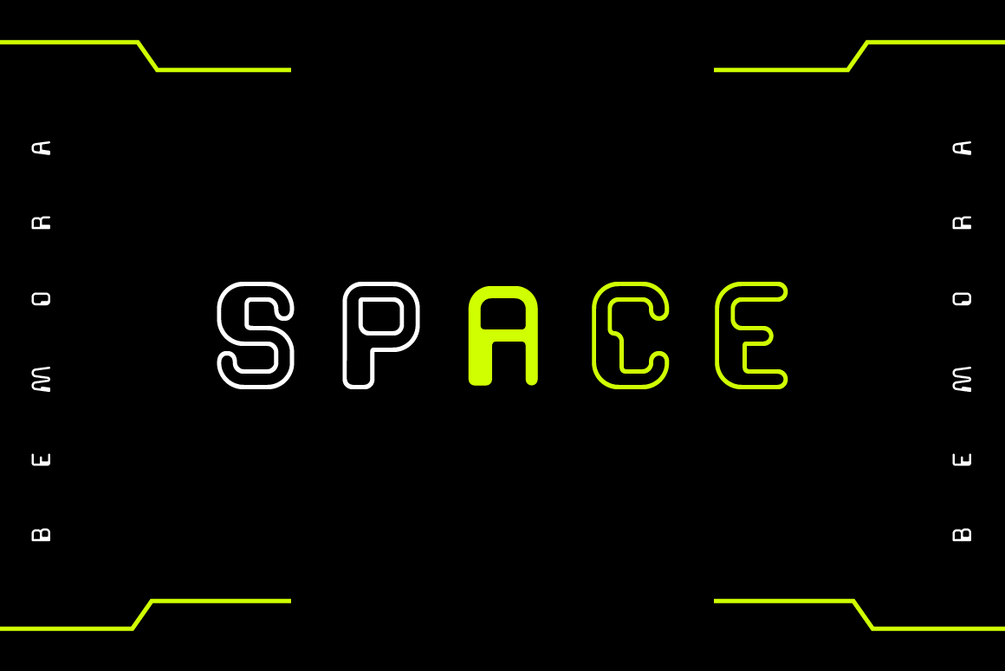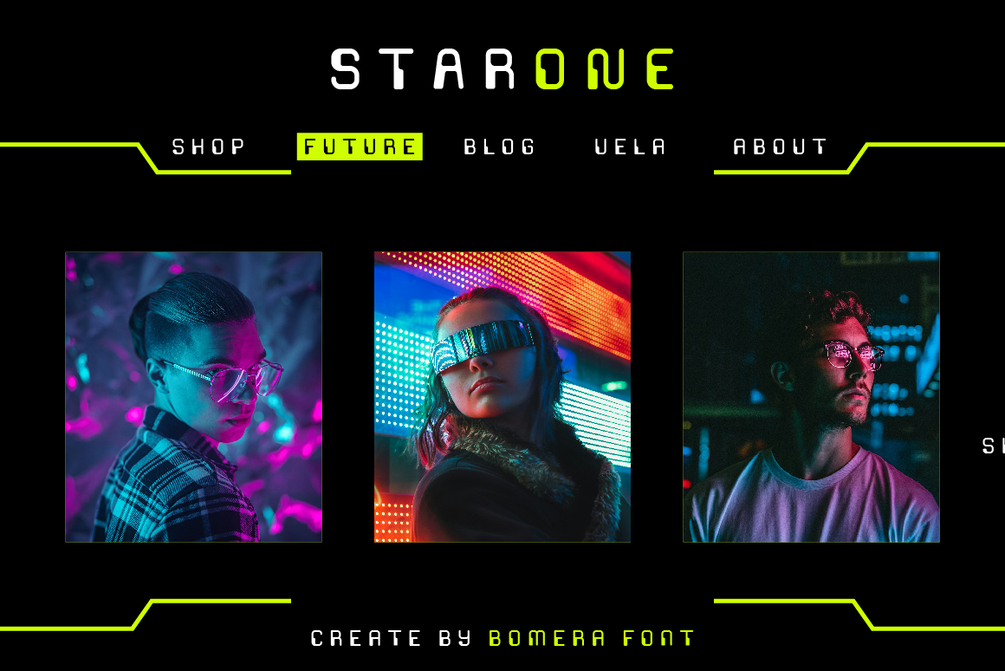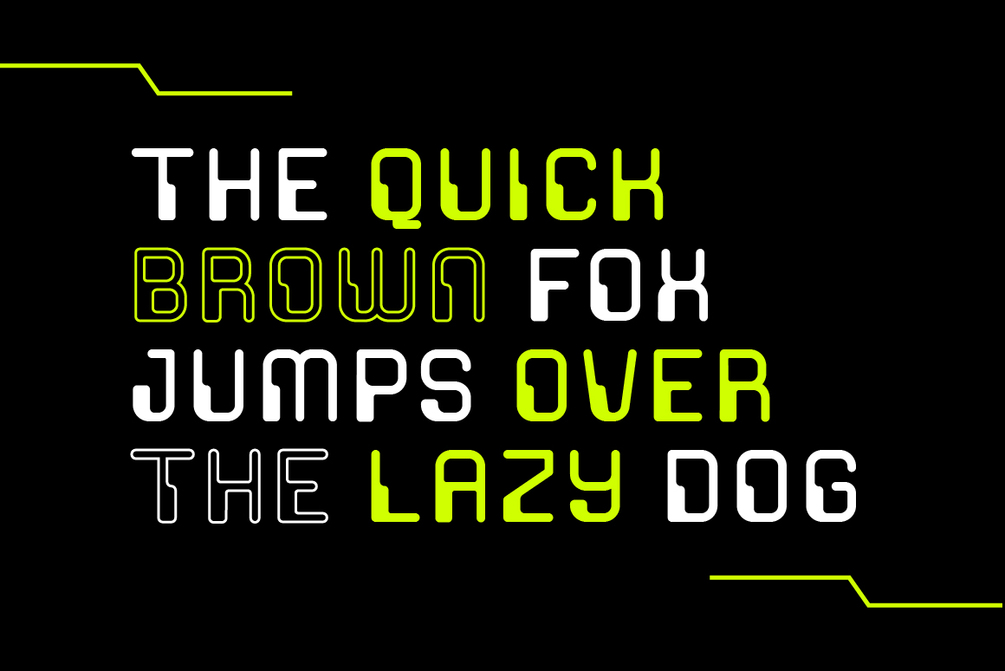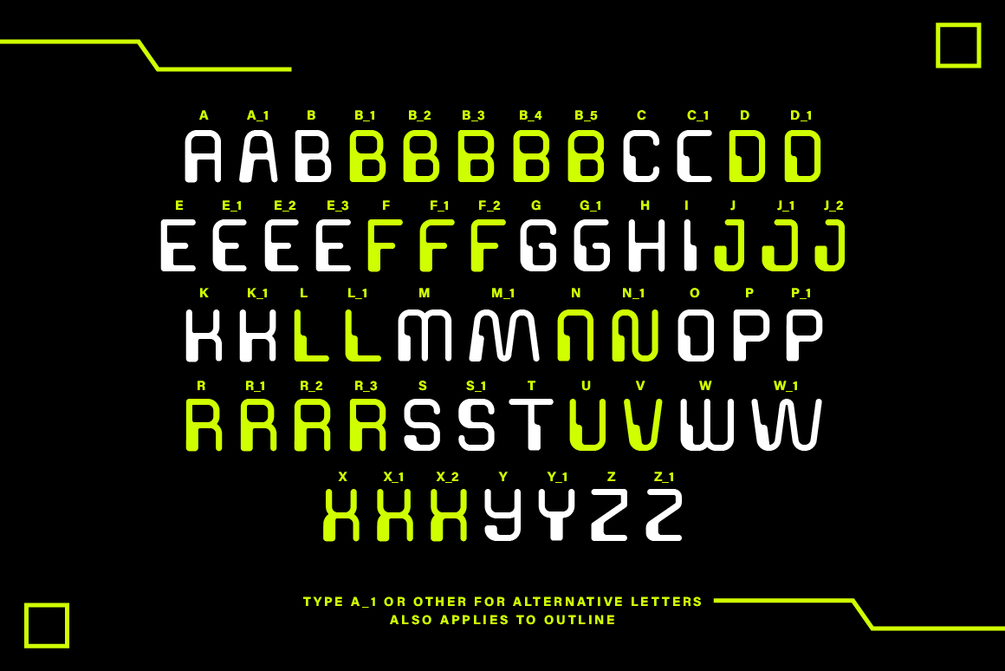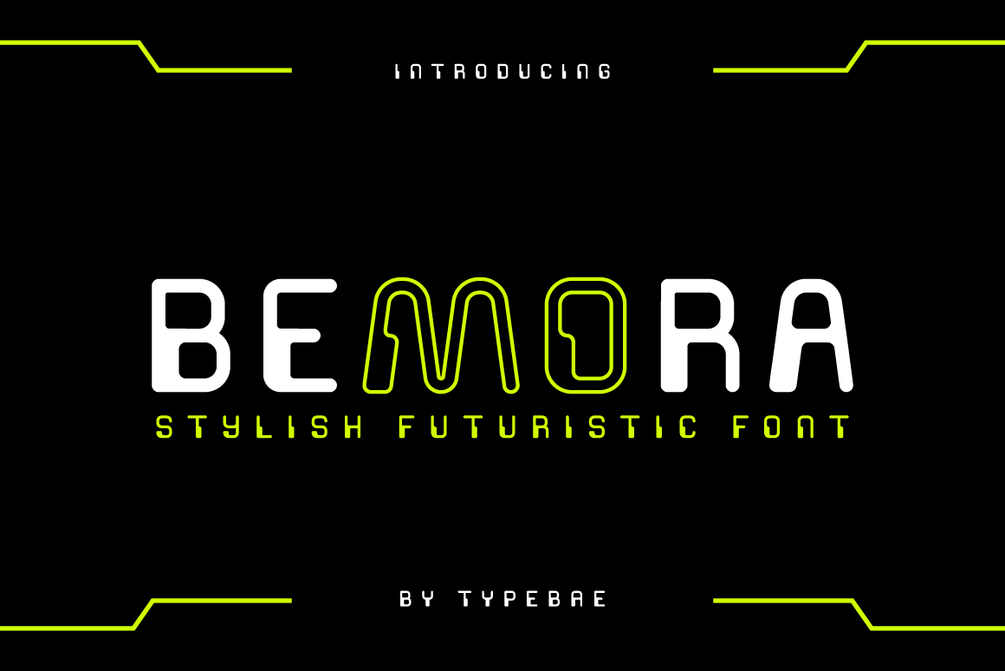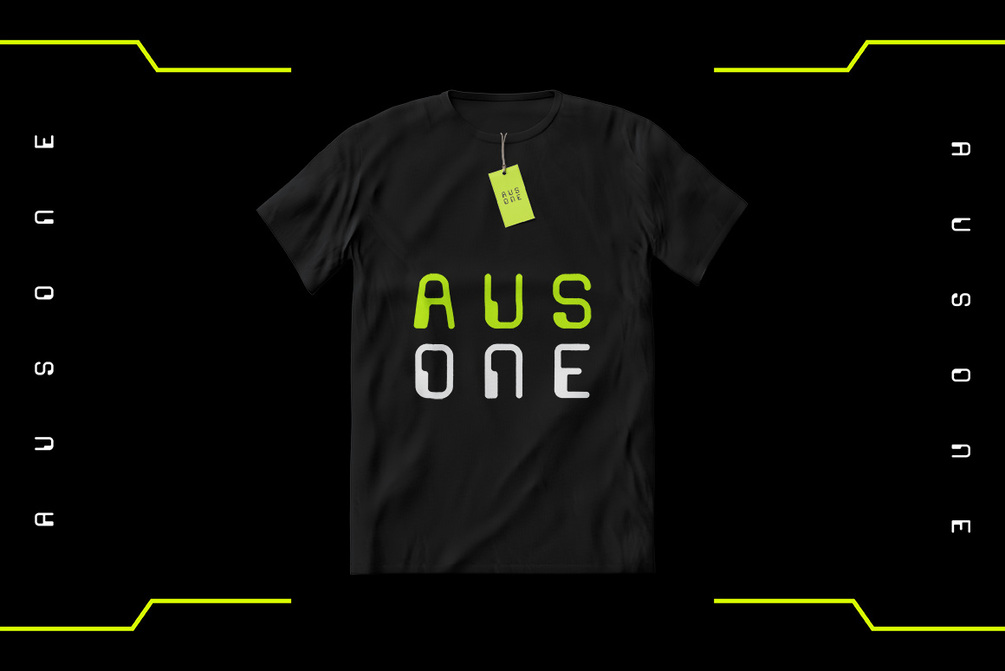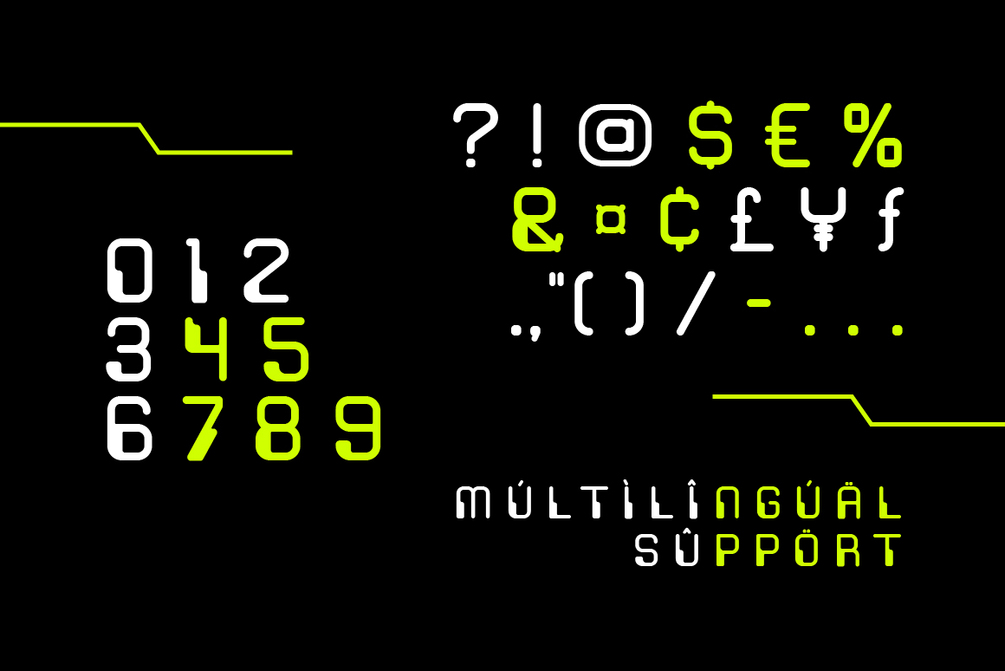
Bemora
Bemora is a captivating display font that embodies a futuristic aesthetic. Its stylish lines and modern design make it perfect for projects seeking a cutting-edge appeal. Whether used in digital interfaces, advertising, or branding "Bemora" adds a touch of innovation and sophistication to any visual composition.
• Bemora Regular & Outline
• Stylistic Alternates
• Numeral, Punctuation & Symbol
• Multilingual